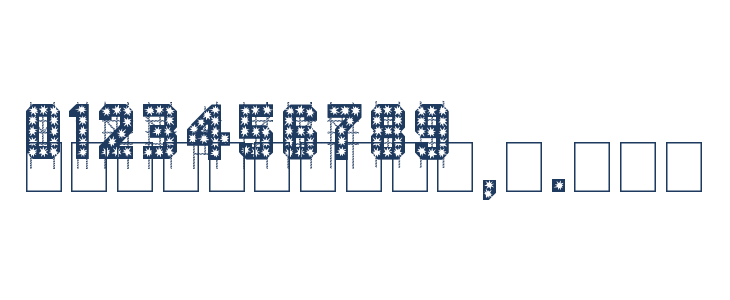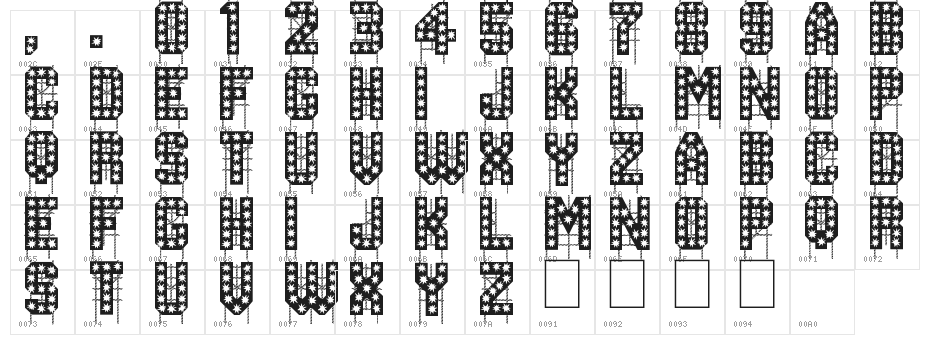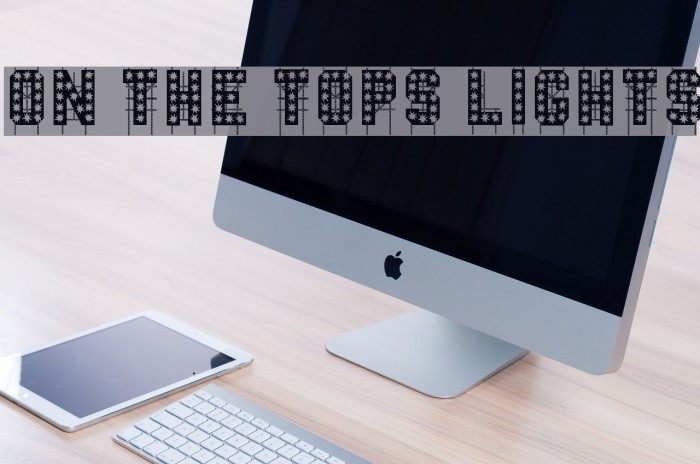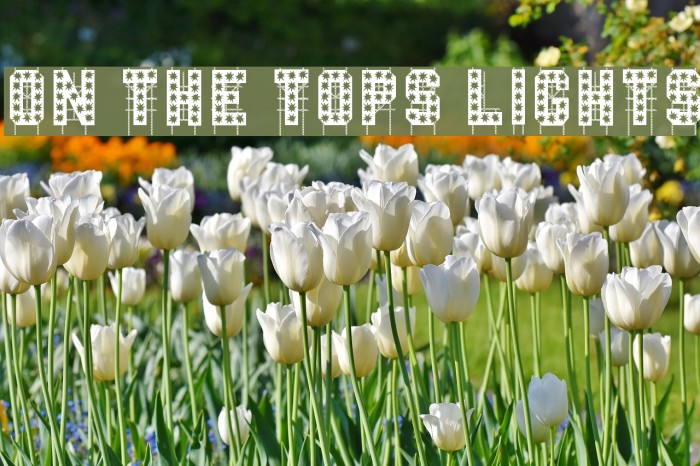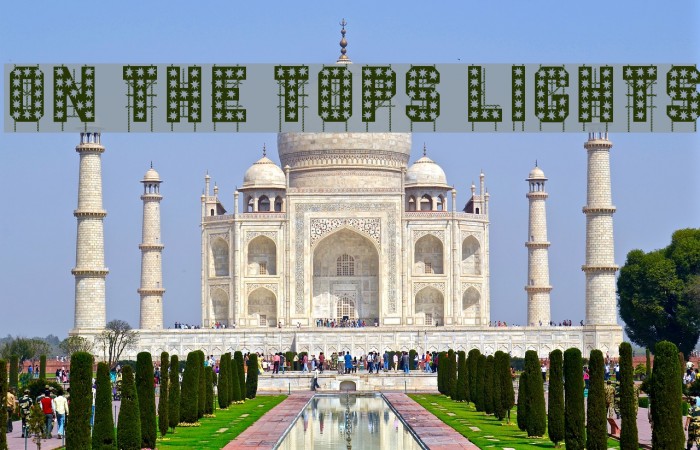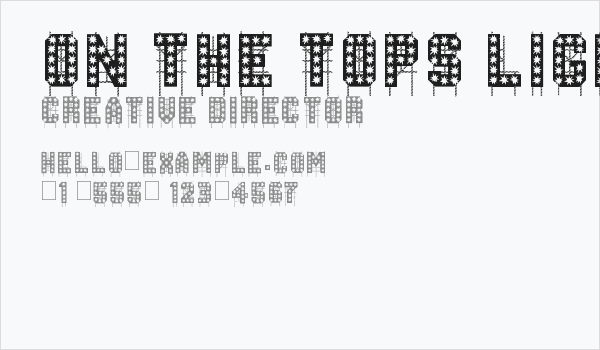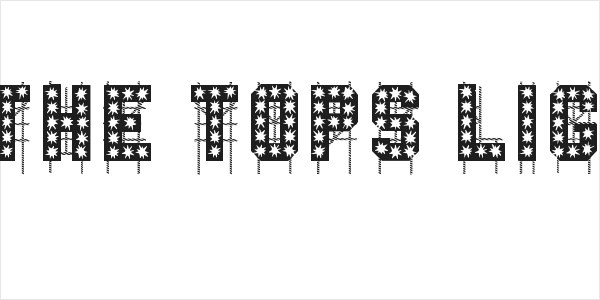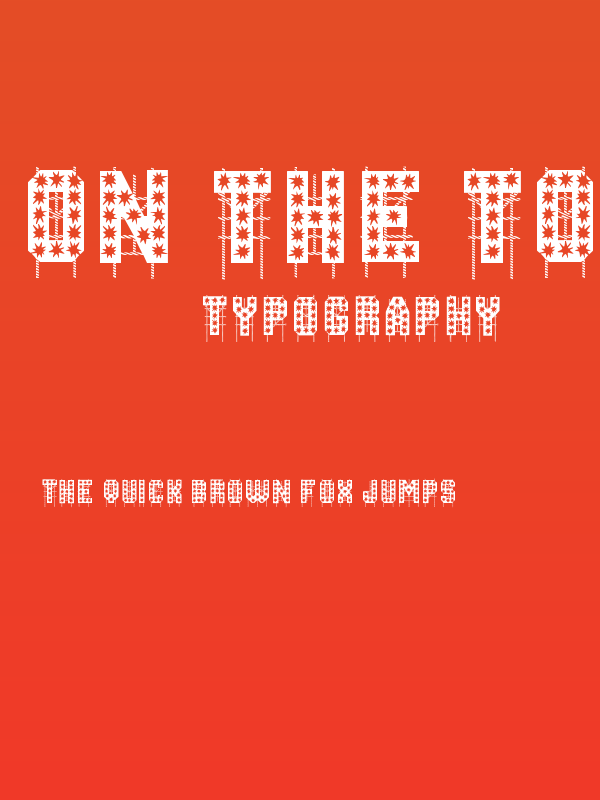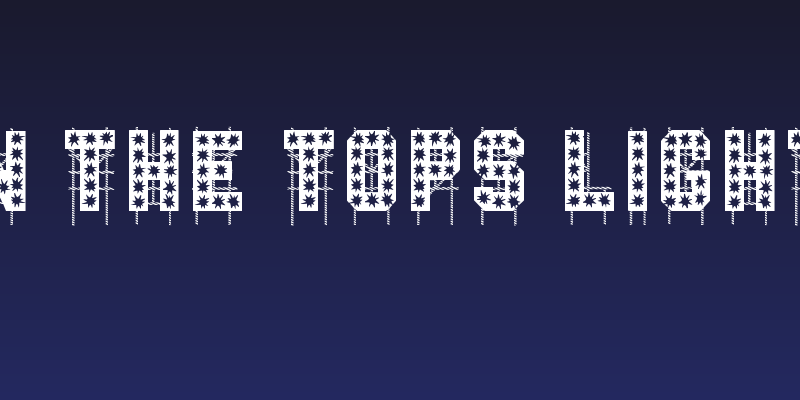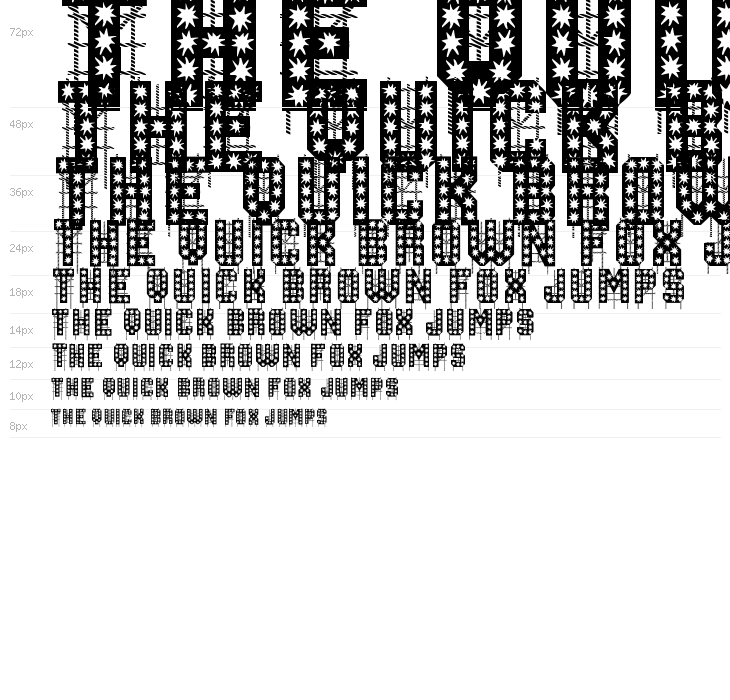
On The Tops Lights Font
On The Tops Lights Description
This font features a bold, decorative style with a unique design that incorporates star-like elements within each character. The letters are blocky and robust, with a consistent pattern of stars filling the interior spaces, giving it a festive and eye-catching appearance. The characters are outlined with a solid border, enhancing their visibility and impact. The font is designed to stand out, making it ideal for attention-grabbing headlines or creative projects. Its playful and dynamic look is perfect for themed events or branding that requires a touch of whimsy and fun.
Proposed ProjectsIdeal for party invitations, event posters, festive branding, and creative headlines.